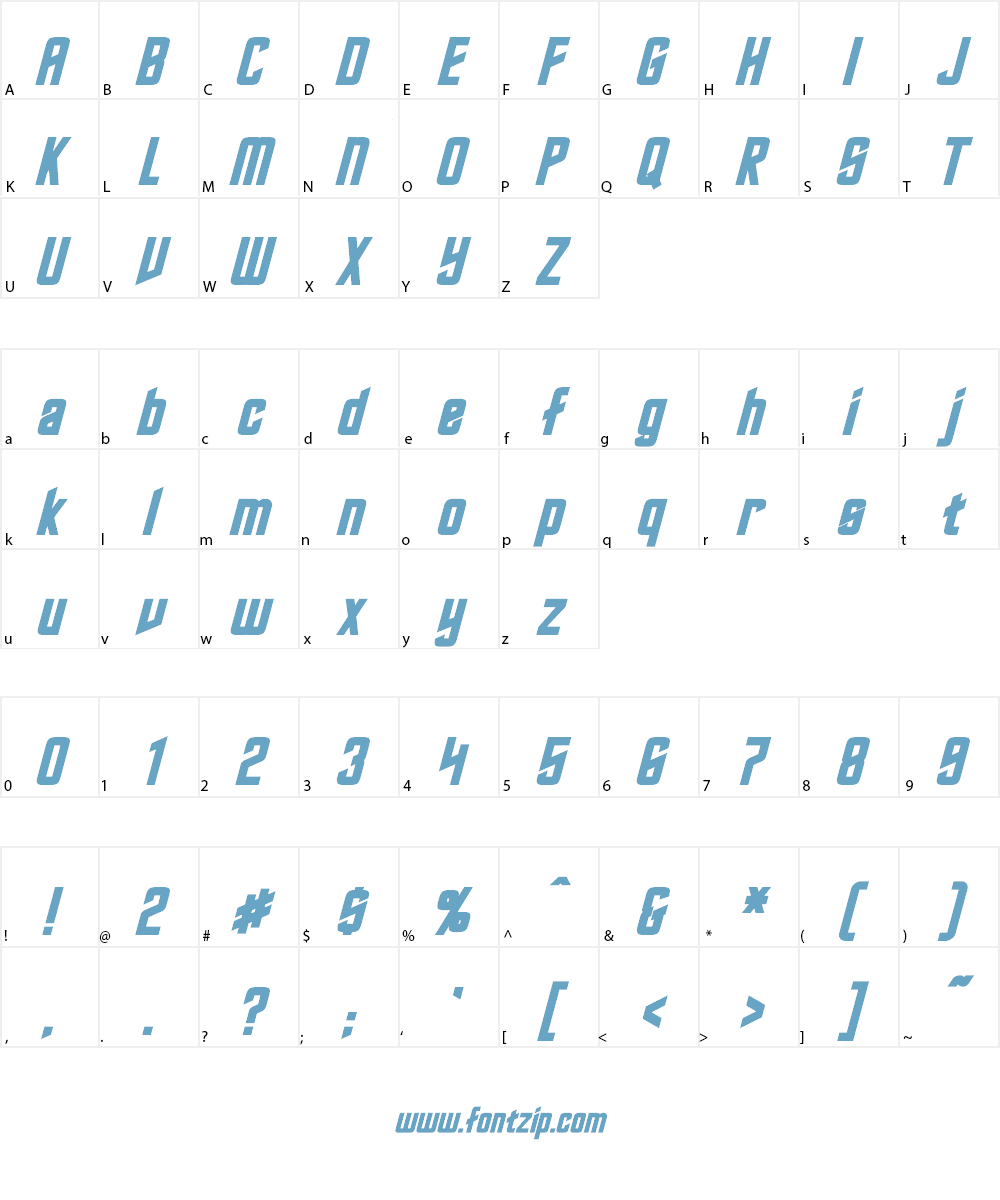
Roddenberry is Pixel Saga’s version of the ever popular title logo of the original Star Trek television series, created by Gene Roddenberry for Desilu and NBC. This font includes full alphanumerics, extended punctuation, euro. Available in regular, bold italic, and bold-italic weights.